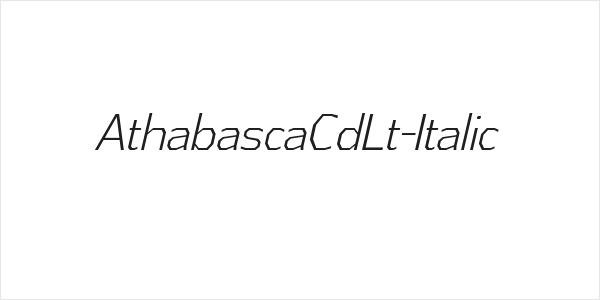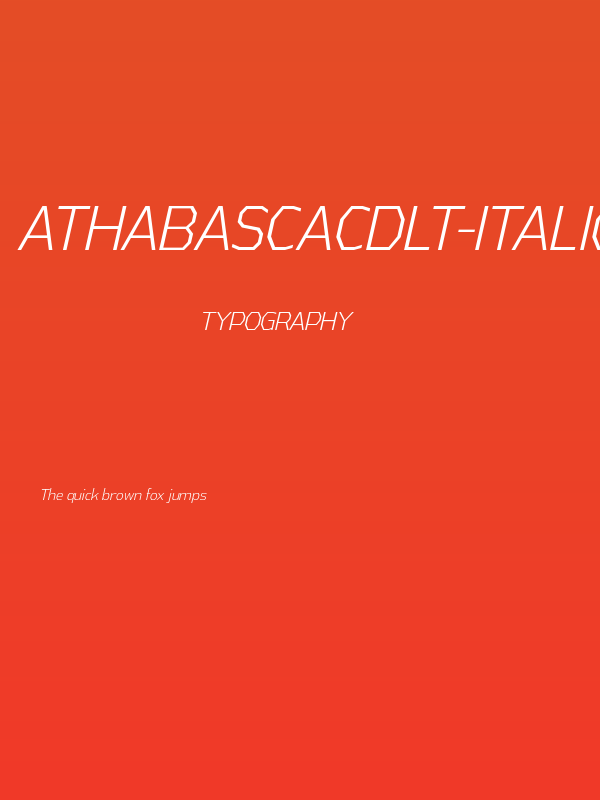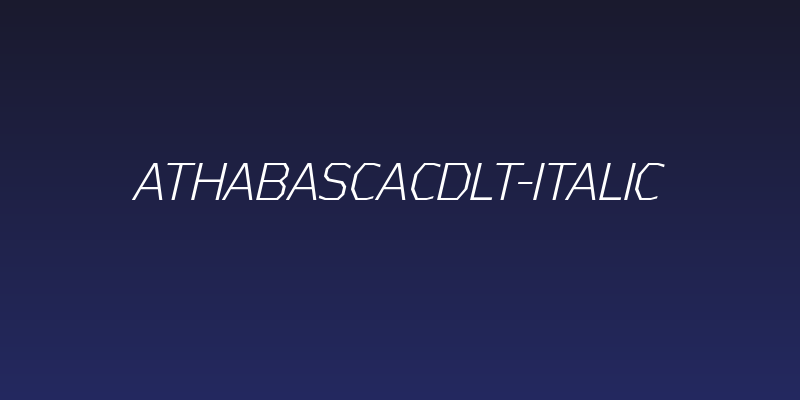
AthabascaCdLt-Italic Font
AthabascaCdLt-Italic Description
This font features a sleek, italicized design with a modern and technical appearance. The characters are slightly slanted, giving a sense of motion and dynamism. The strokes are consistent in width, providing a uniform look across all letters and numbers. The geometric shapes of the characters, particularly the angular edges, contribute to its contemporary style. The font maintains a clean and professional appearance, making it suitable for various applications. The spacing between characters is balanced, ensuring readability while maintaining its distinct style.
| Use Case | Logos, Headlines, Branding |
| Proposed Projects | Ideal for technology branding, modern advertising, and innovative product packaging. |